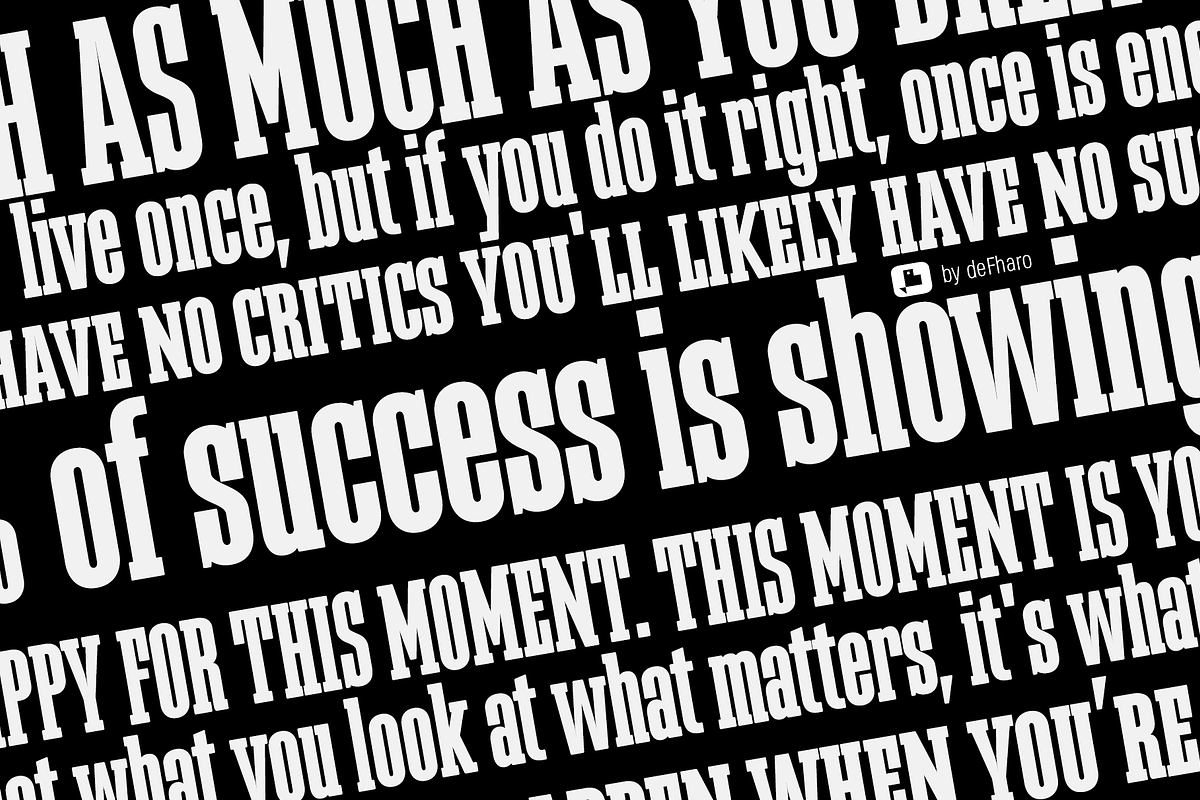
Megalito Slab Cyrillic
Megalito Slab Serif Cyrillic is a display font of geometric construction, very vertical, with extra condensed proportion for the creation of large titles with significant savings in horizontal space, it has an extended character table (721 glyphs) that includes small letters, 7 numeral sets, fractions dynamics with numbers and letters, collection of currency symbols, ligatures, alternative letters and etc.
This retro-style typography refers to the design of posters and posters made from the mid-20th century until today.
- Megalito Slab Cyrillic includes the symbol of Bitcoin and currency symbols.
- OpenType Features: All Alternates, Alternate Annotation Forms, Bitcoin, Capital Spacing, Contextual Alternates, Denominators, Discretionary Ligatures, Extended Fractions, Historical Forms, Historical Ligatures, Kerning, Localized Forms, Numerators, Oldstyle Figures, Ordinals, Scientific Inferiors, Slashed Zero, Standard Ligatures, Stylistic Set, Subscript, Superior letters, Superscript.